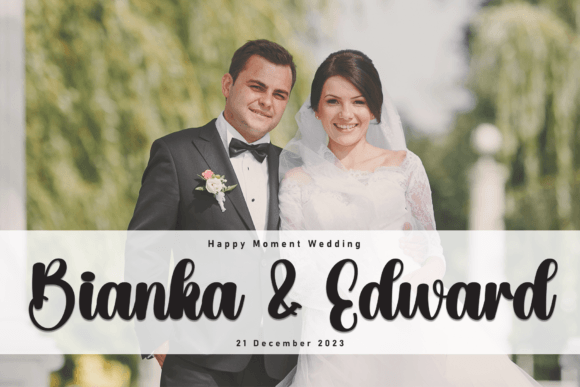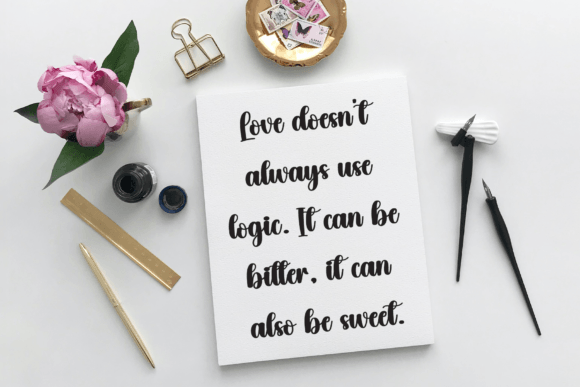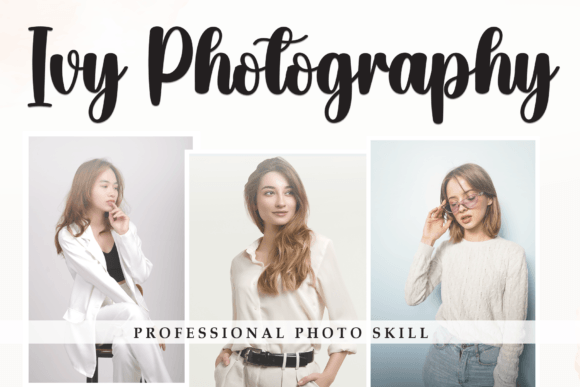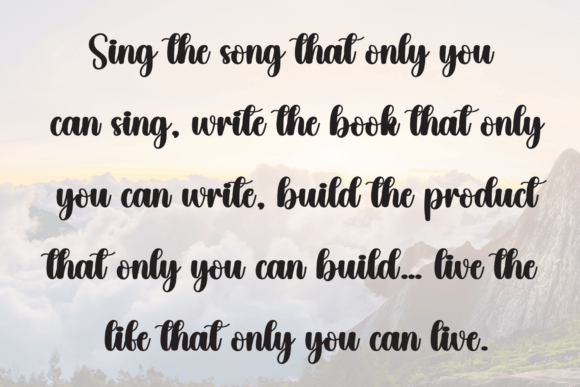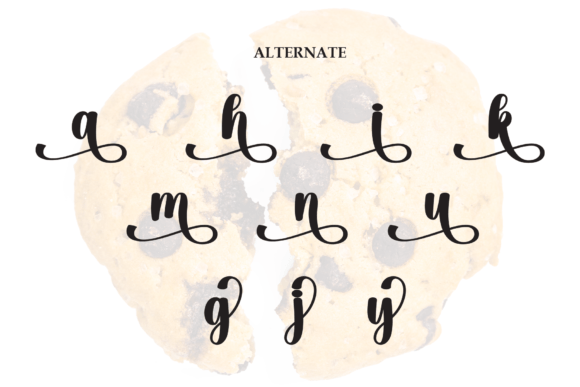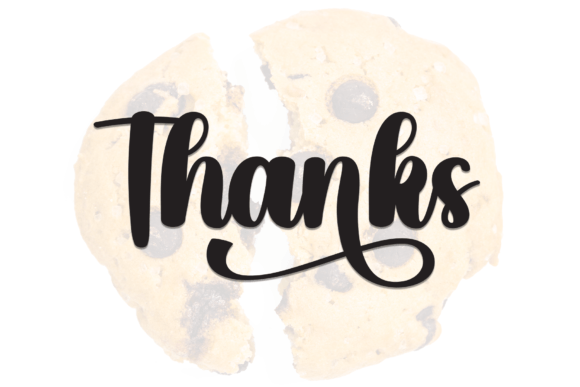
Introducing Chunking Font: The Ultimate Calligraphic Marvel
Are you on the hunt for a font that exudes elegance, sophistication, and a touch of modern flair? Look no further than Chunking Font, a stunning handwritten typeface that is sure to capture your heart. With its perfect blend of classy calligraphic influences and contemporary freshness, Chunking Font is the ideal choice for designers and crafters seeking to elevate their projects to new heights.
The Story Behind Chunking Font
Chunking Font is more than just a beautiful font – it’s a masterpiece crafted with precision and passion. Its design is rooted in the art of calligraphy, with each letter meticulously shaped to convey a sense of luxury and refinement. At the same time, the font boasts a modern sensibility that ensures it remains fresh and relevant in today’s fast-paced design landscape.
What Makes Chunking Font So Special?
So, what sets Chunking Font apart from other fonts on the market? Here are just a few reasons why this exquisite handwritten font has captured the hearts of designers and crafters worldwide:
- Classy Calligraphic Influences: Chunking Font’s calligraphic roots are evident in its elegant letterforms, which are reminiscent of traditional calligraphy.
- Contemporary Freshness: Despite its classic influences, Chunking Font feels remarkably modern and fresh, making it perfect for designers seeking a font that will help their projects stand out.
- Versatility: Whether you’re working on a logo, branding project, or social media graphics, Chunking Font is incredibly versatile and can be used in a wide range of applications.
- Legibility: Chunking Font is designed to be highly legible, even at smaller sizes, making it perfect for use in body text or captions.
How to Use Chunking Font in Your Projects
Ready to fall in love with Chunking Font and bring your projects to the highest levels? Here are a few ideas to get you started:
- Logos and Branding: Use Chunking Font to create a luxurious and sophisticated brand identity that will help your business stand out.
- Social Media Graphics: Add a touch of elegance to your social media graphics with Chunking Font, perfect for creating eye-catching posts and stories.
- Wedding and Event Stationery: Chunking Font is perfect for creating beautiful wedding invitations, save-the-dates, and other event stationery.
- Packaging and Product Design: Use Chunking Font to add a touch of luxury to your product packaging and create a lasting impression on your customers.
Tips for Getting the Most Out of Chunking Font
To truly make the most of Chunking Font, here are a few tips to keep in mind:
- Experiment with Pairings: Try pairing Chunking Font with other fonts to create a unique and eye-catching combination.
- Play with Size and Color: Don’t be afraid to experiment with different sizes and colors to add visual interest to your designs.
- Use it Sparingly: While Chunking Font is incredibly versatile, it’s best used sparingly to create a lasting impression.
In conclusion, Chunking Font is a true marvel of modern typography, offering a perfect blend of classy calligraphic influences and contemporary freshness. Whether you’re a designer, crafter, or simply someone who appreciates beautiful typography, Chunking Font is sure to capture your heart. So why wait? Fall in love with Chunking Font today and bring your projects to the highest levels!